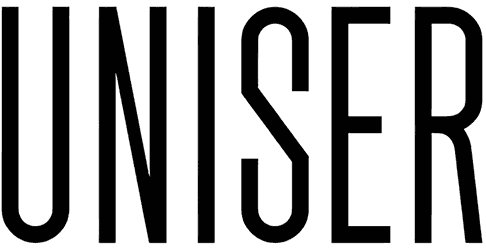
Uniser Font
Use Uniser as a sans serif font and make an old-fashioned but dateless surface for your forthcoming design. Uniser possesses two weights but doesn’t have any offers for lowercase and most of the numbers. As a newspaper font, it is applicable for many projects such as banners, social media posts, ads, and a lot more.